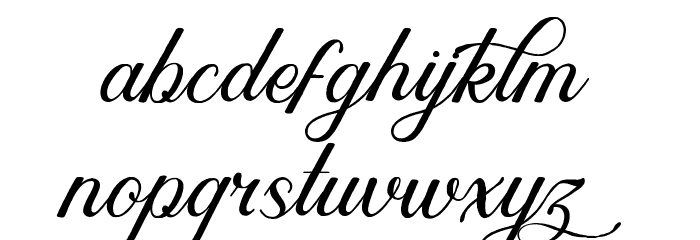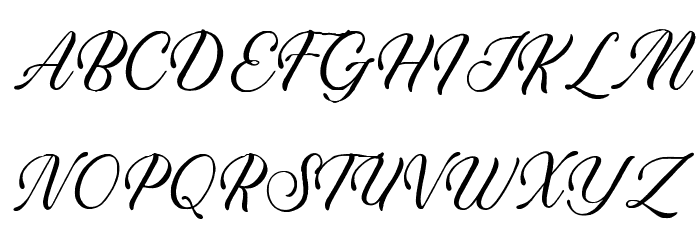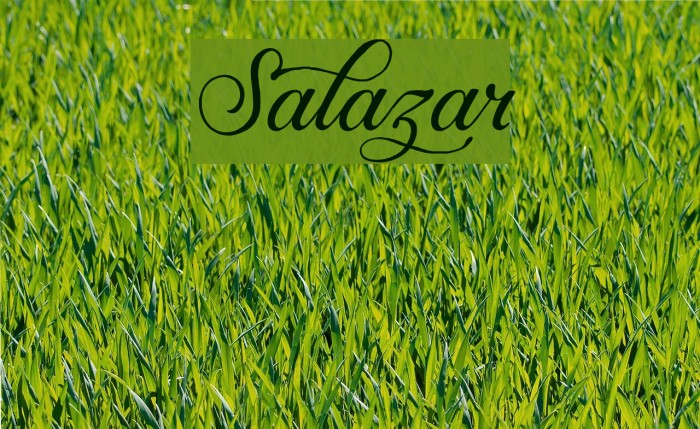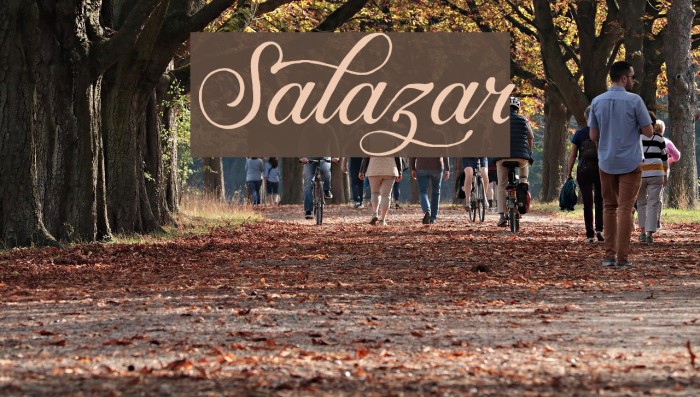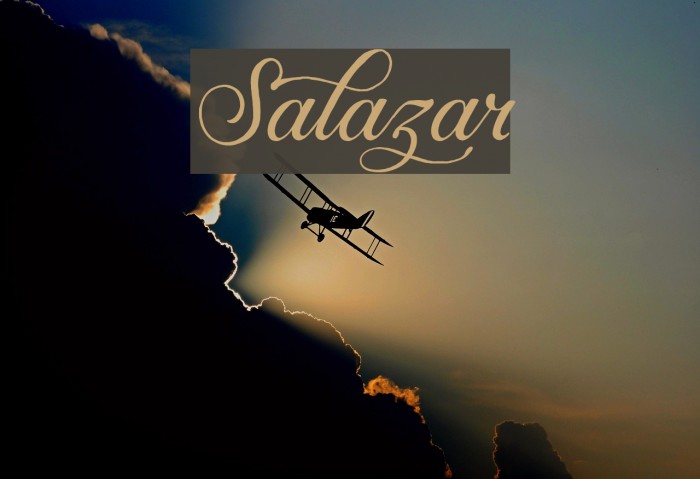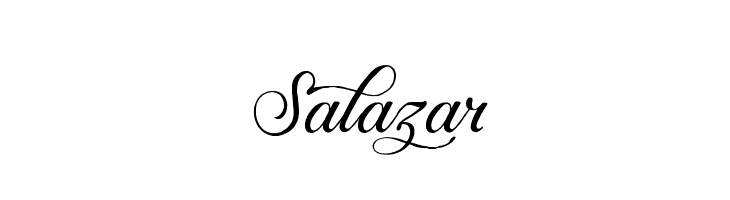
Salazar Font
This font exudes elegance and sophistication with its flowing, cursive style. Each letter is meticulously crafted with smooth curves and delicate strokes, creating a sense of fluidity and grace. The uppercase letters are particularly ornate, featuring intricate loops and flourishes that add a touch of grandeur. The lowercase letters maintain a consistent style, with gentle connections between characters that enhance readability while preserving the font's decorative nature. This font is perfect for projects that require a touch of class and refinement, such as wedding invitations, formal event programs, or luxury branding.
An elegant cursive font with flowing, ornate letters and graceful connections.
- Proposed Projects: Ideal for wedding invitations, formal event programs, luxury branding, and elegant stationery.
- Overall Style: Elegant
- Use Case: Logos, Invitations, Decorative text